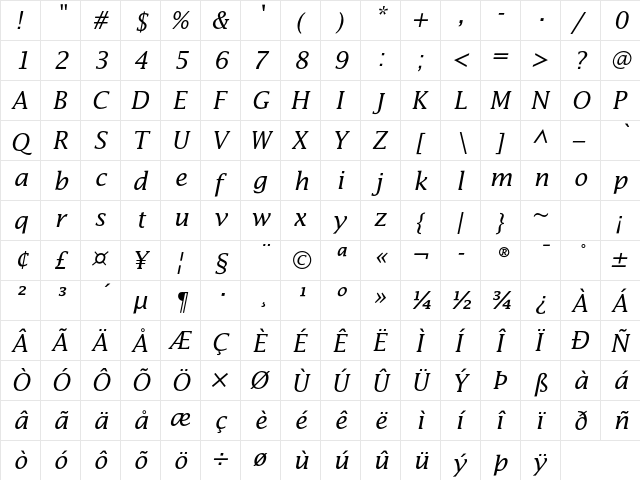
Lucida Std Italic
| Designer | Kris Holmes, Charles Bigelow |
Design Context for Lucida Std Typeface
Lucida Std takes a measured approach to typography — its balanced proportions and neutral character make it a reliable workhorse for both digital and print work. The slanted form adds forward momentum and visual energy.
Pro Tip: Use Lucida Std for emphasis, pull quotes, and subheadings where its slanted energy can add rhythm to the layout.